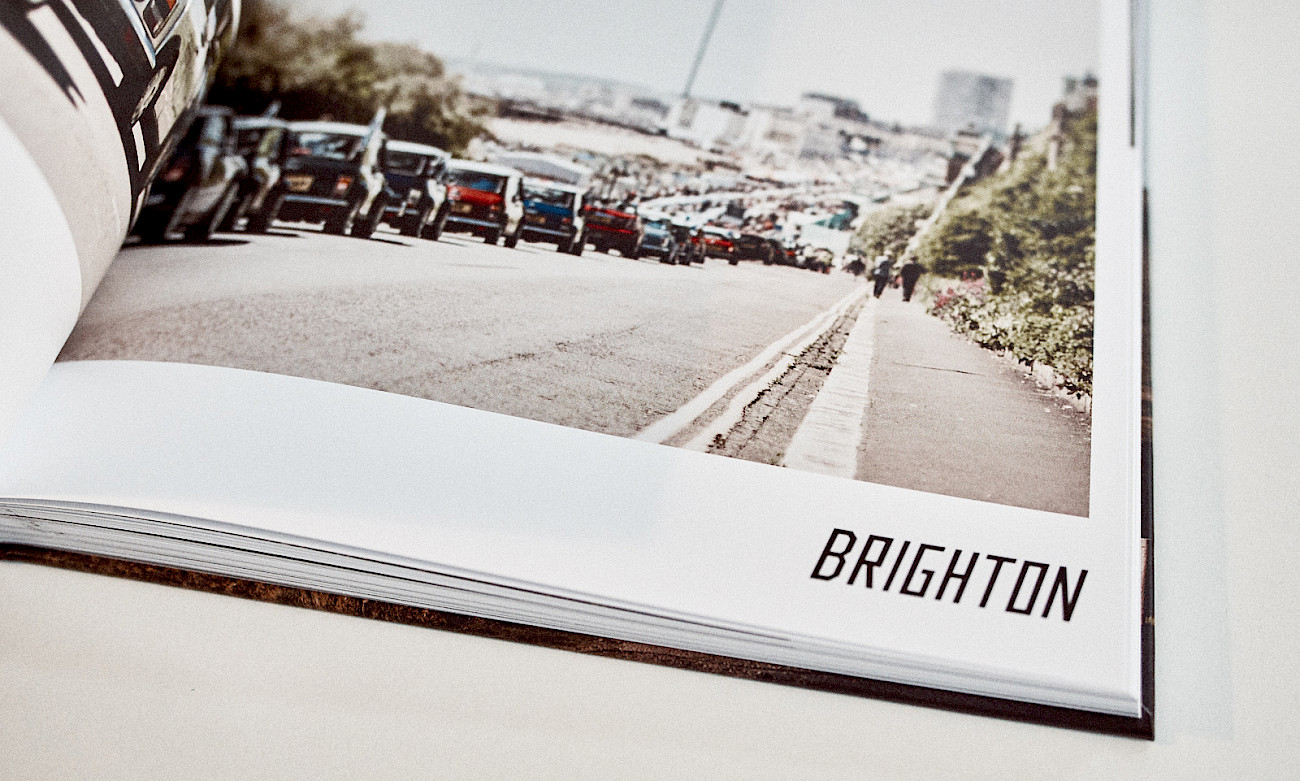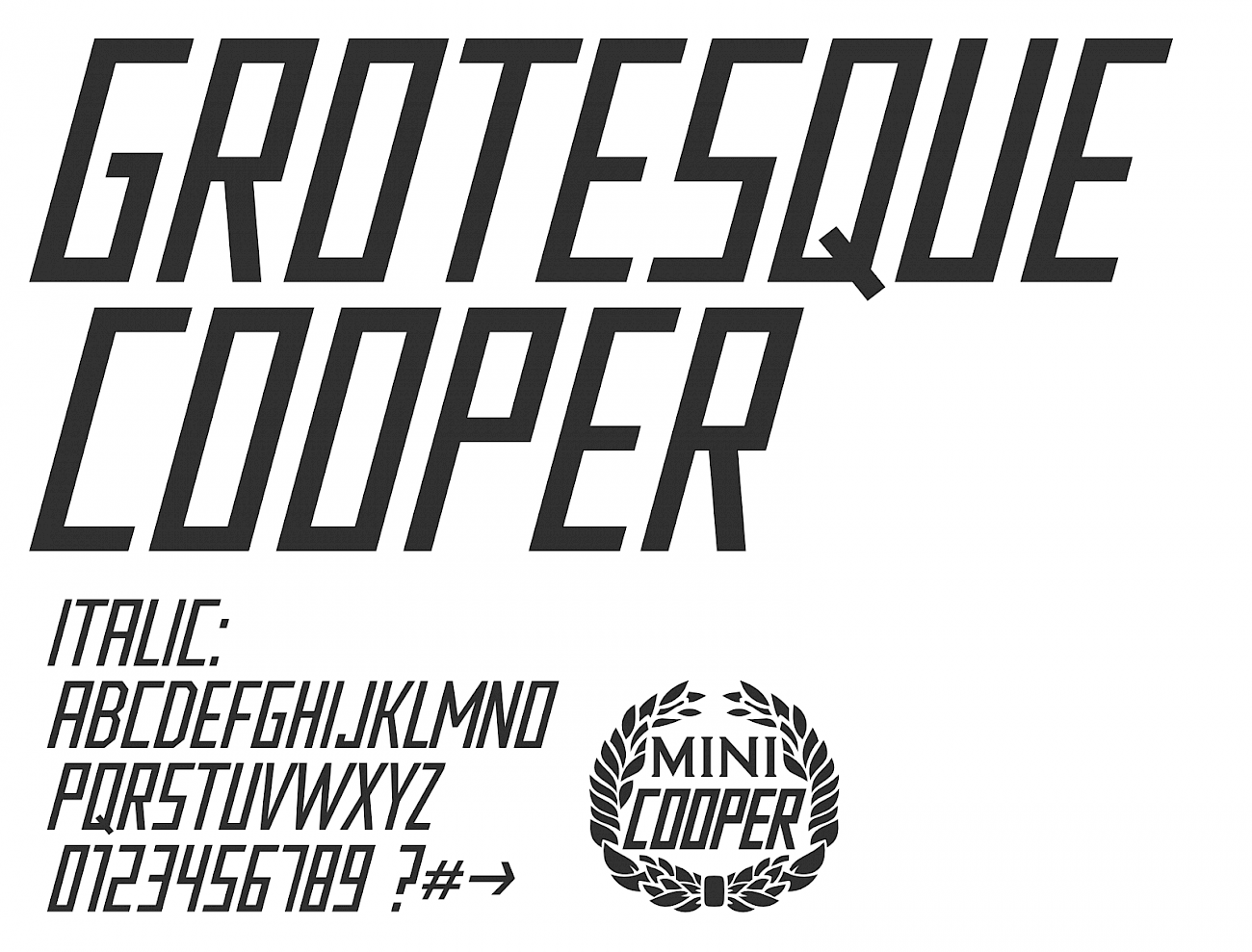
Grotesque Cooper
Custom Typeface
Creating a coffee table book for BMW Group Classic in Germany, centered on the iconic Mini Cooper, required a typeface that authentically captured the car’s distinctive character.
Since no complete original font from the logo was available, we took on the challenge of reconstructing the typeface based solely on the “COOPER” lettering from the Rover Mini Cooper emblem. Using this limited reference, we carefully developed the missing characters to form a cohesive and functional typeface.
While the original lettering displayed certain irregularities, we embraced these nuances as a source of inspiration, refining and extending them with our own design sensibility. The result is a unique typeface that we have named the Mini Cooper Font.